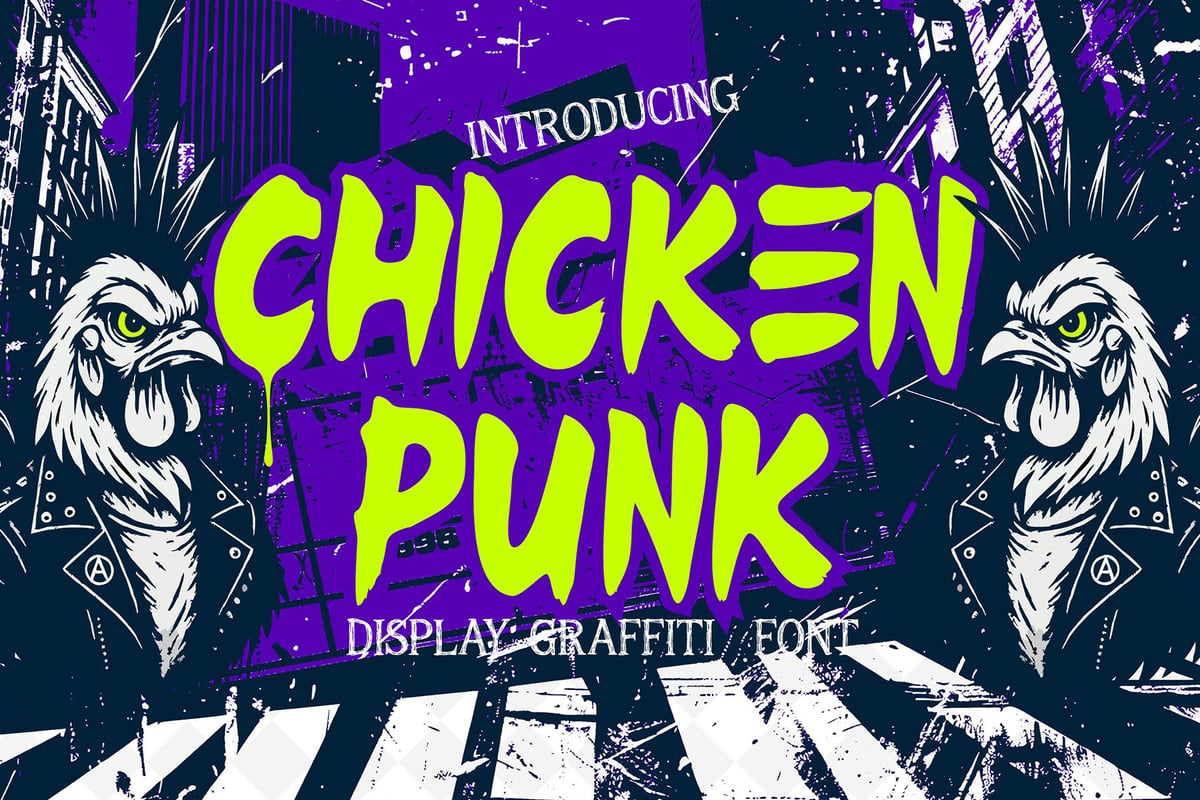
Chicken Punk
Chicken Punk is a bold graffiti display font that combines the raw power of street tagging with the loud attitude of punk culture. Designed for creators who love breaking rules and pushing visual boundaries, this font brings an explosion of energy and authenticity to every project. It’s rebellious, expressive, and built to stand out in a world full of ordinary designs.